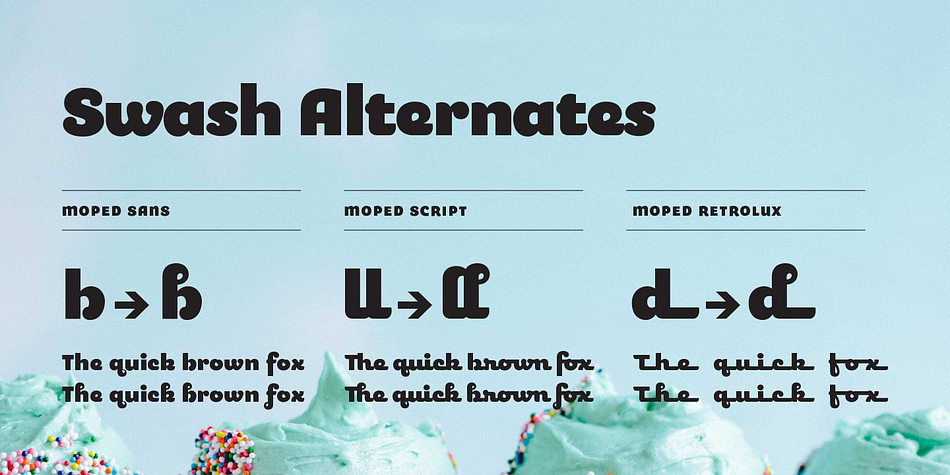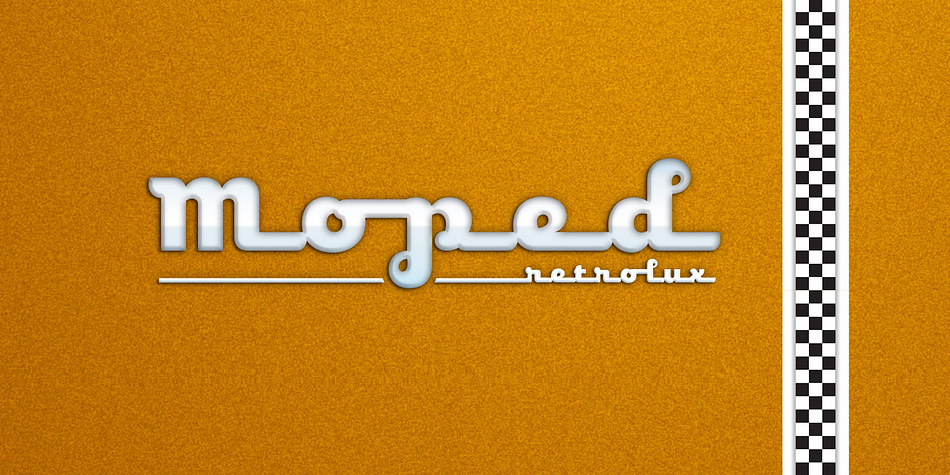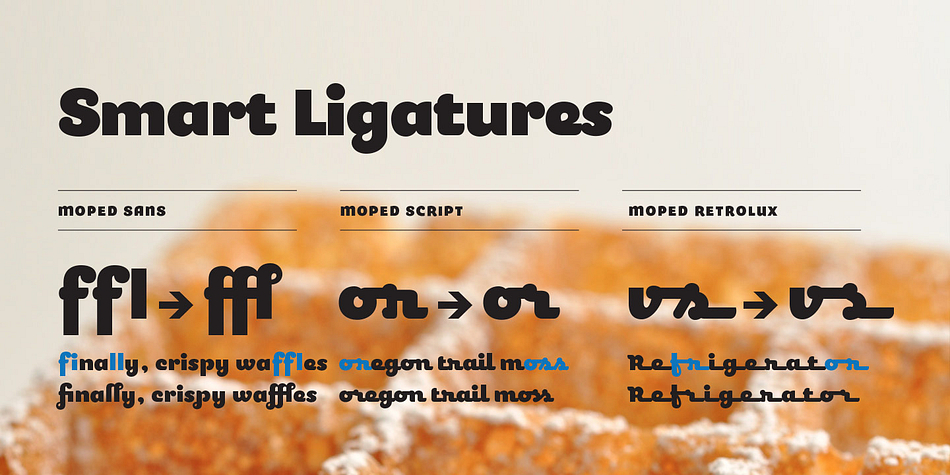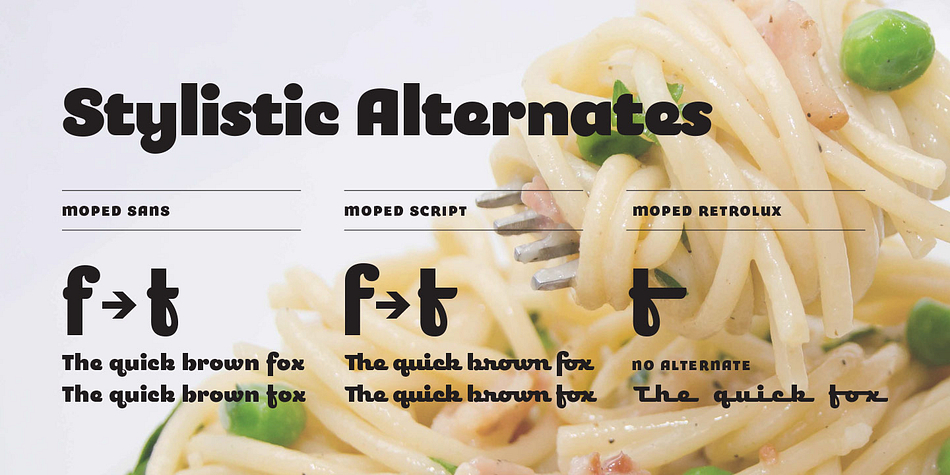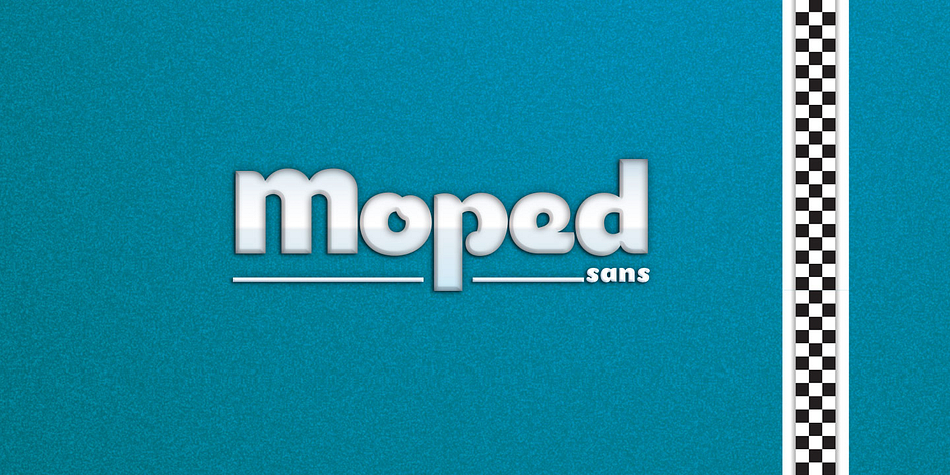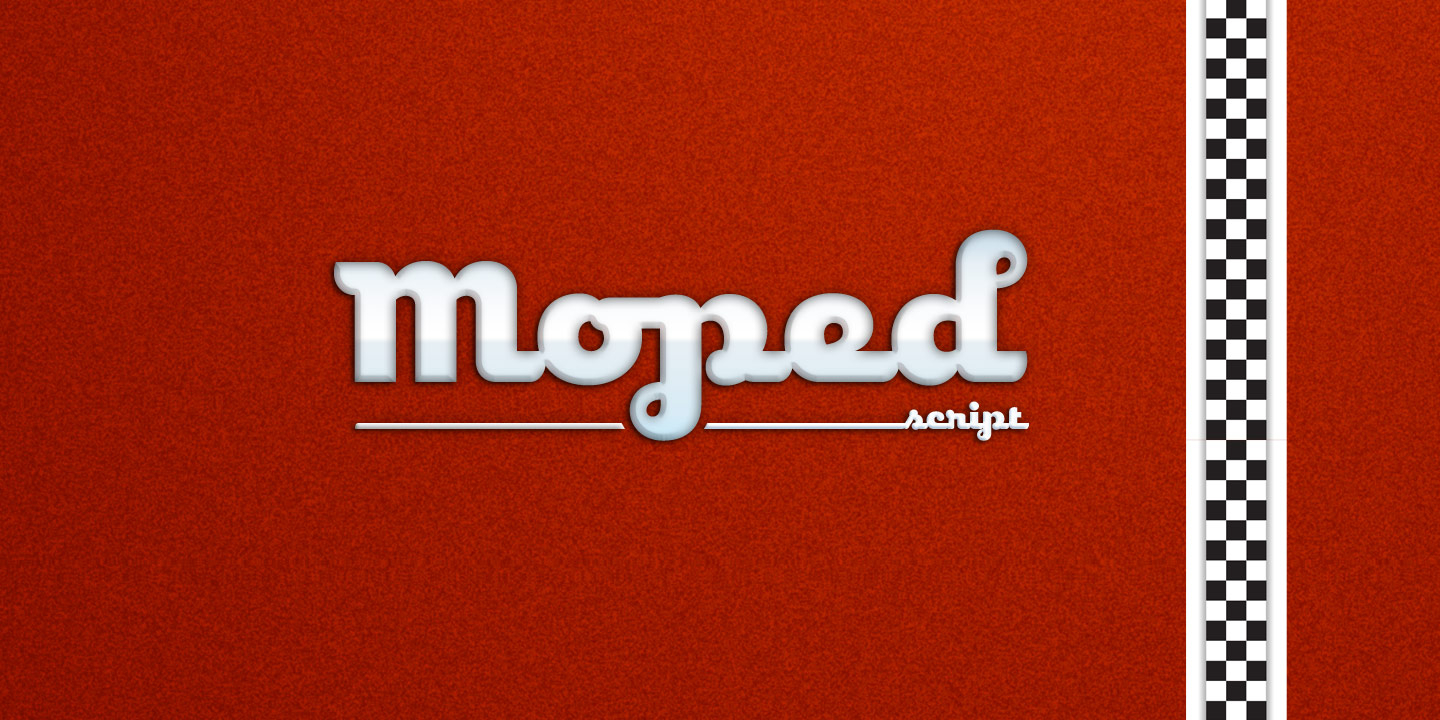
Designed by Randy Jones, Moped is a brush display and retro font family. This typeface has three styles and was published by ToadFonts.
Moped is a contemporary take on the baseline scripts of 1950’s. Often adorning appliances and automobiles, these classics have been updated with playful whimsy. The mopeds come in three styles from the versatile sans, the approachable script and the chrome-ready retrolux. Each version comes with smart ligatures for better fit and flow. Checkout the Mopeds for your next logo or packaging project!
Foundry | ToadFonts |
Released | 2009 |
Styles | Brush Display, Retro |
Designer | Randy Jones |